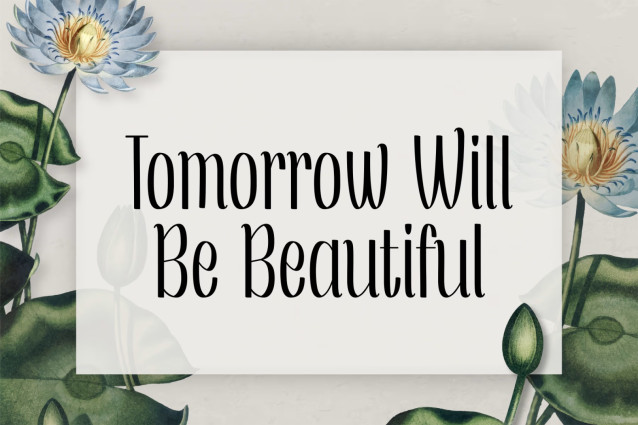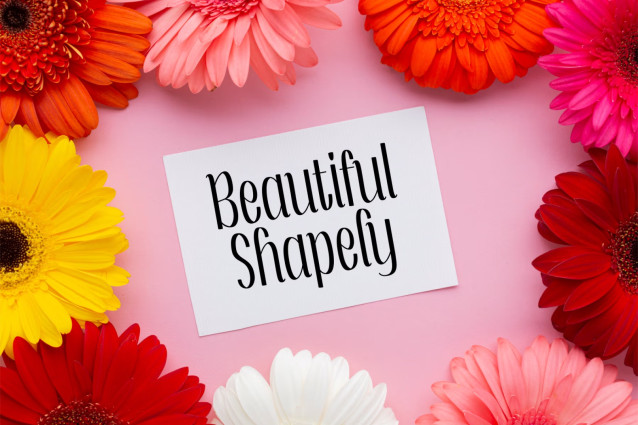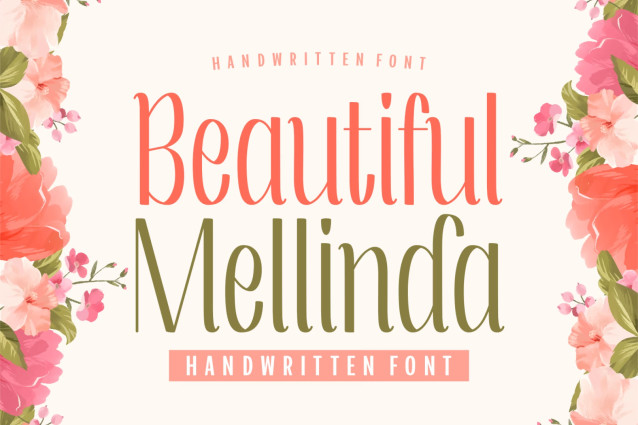
Beautiful Mellinda Font
Beautiful Mellinda Font is a fresh and clean handwritten font. With a neat and sleek appearance, this font had the potential to elevate any design you wish to create.